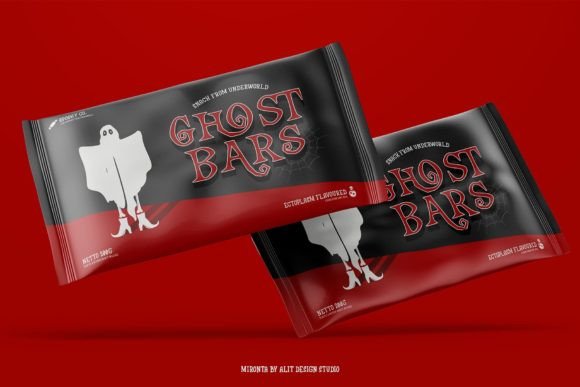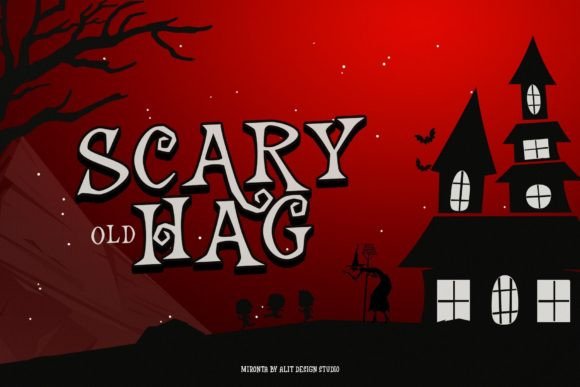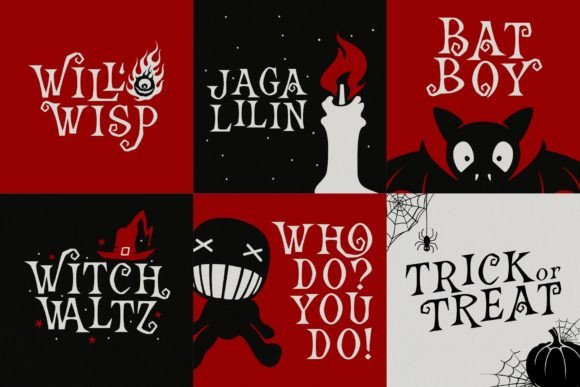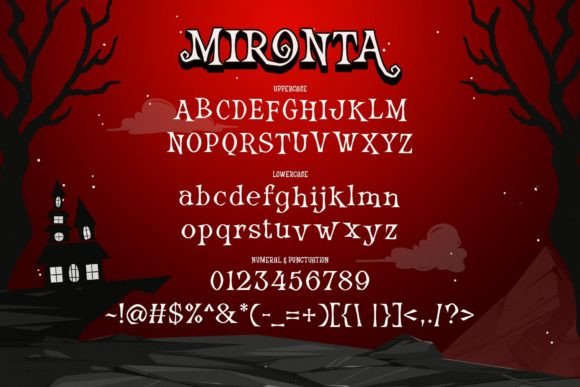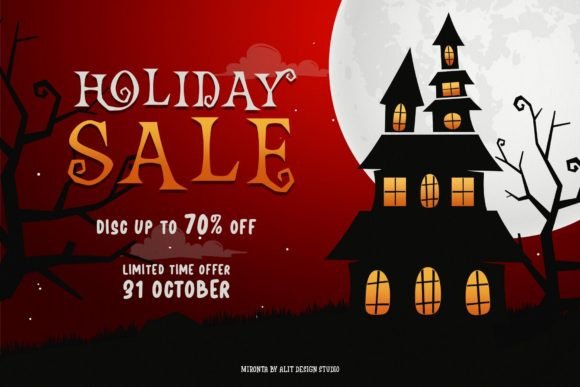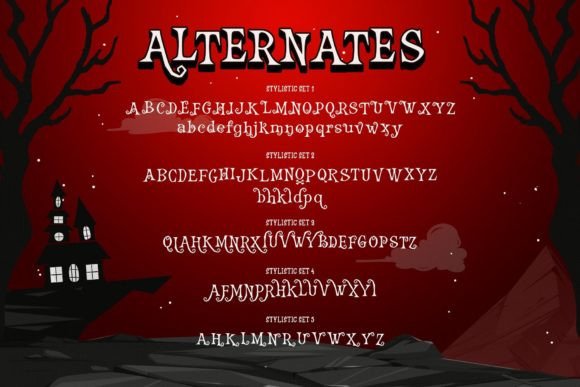
Introduction to Mironta Font
Mironta is a cool and mysterious display font.
Spooky yet fun, this font is perfect for all your Halloween designs This font is PUA encoded which means you can access all the glyphs and ligatures with ease.
Key Features of Mironta Font
Why Choose Mironta Font?
Mironta Font offers exceptional quality and versatility, making it a valuable addition to your design toolkit. Whether you’re creating for personal projects or commercial use, Mironta Font delivers professional results.